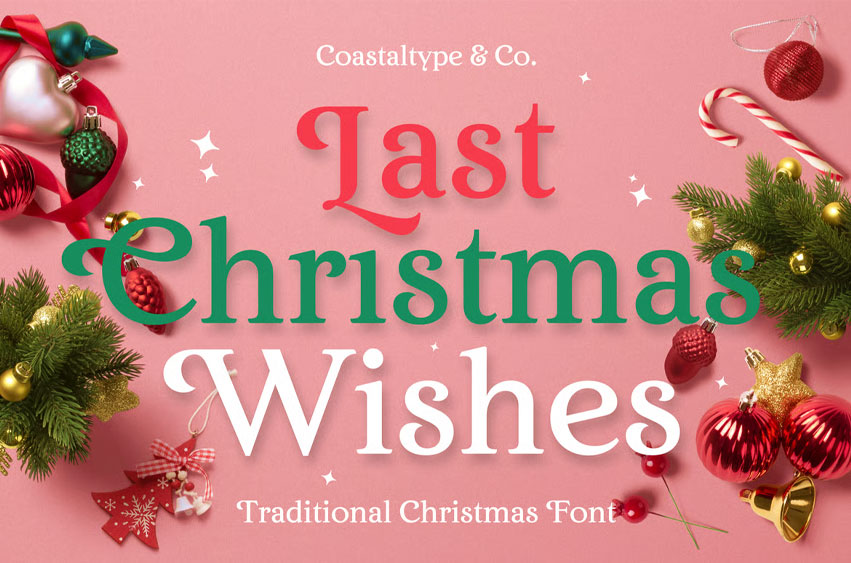
Last Christmas Wishes Font
Last Christmas Wishes Font is a retro warming christmas feeling font that exudes sophistication and elegance. They are easy to use and perfect for expressing your thoughts, posting quotes and simple daily updates on social media.
This will make the Christmas moment more classy and glamorous.